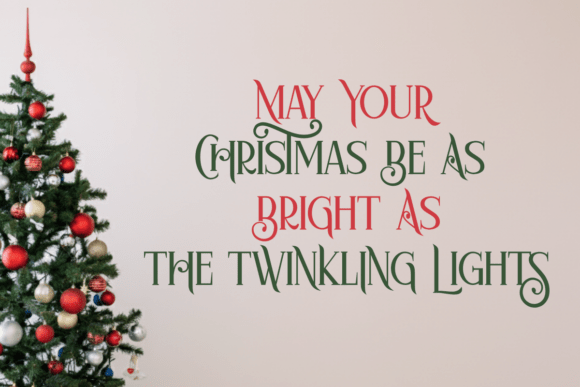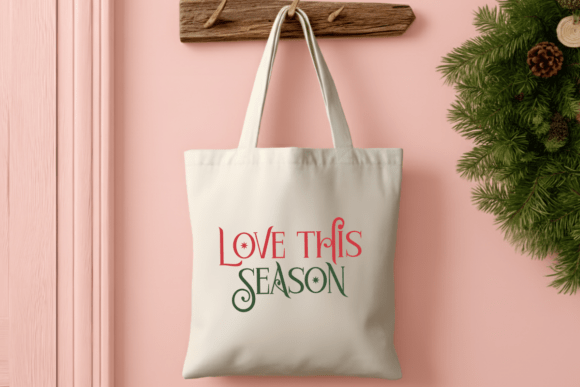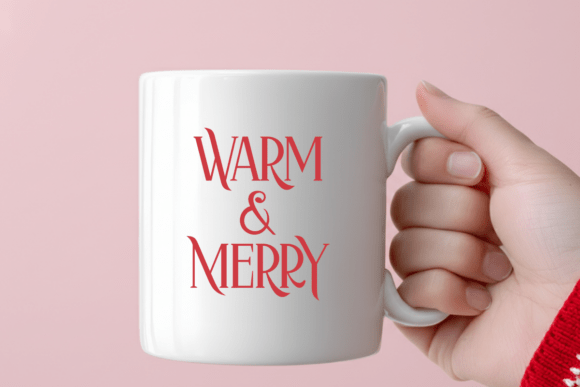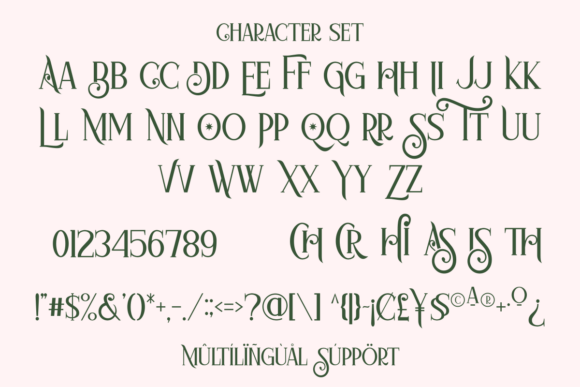
Grinches Christmas Font
Grinches Christmas is a display modern serif font with a whimsical holiday touch. Perfect for Christmas cards, festive quotes, invitations, mugs, and more. Add a joyful and elegant charm to your holiday projects with this unique typeface.